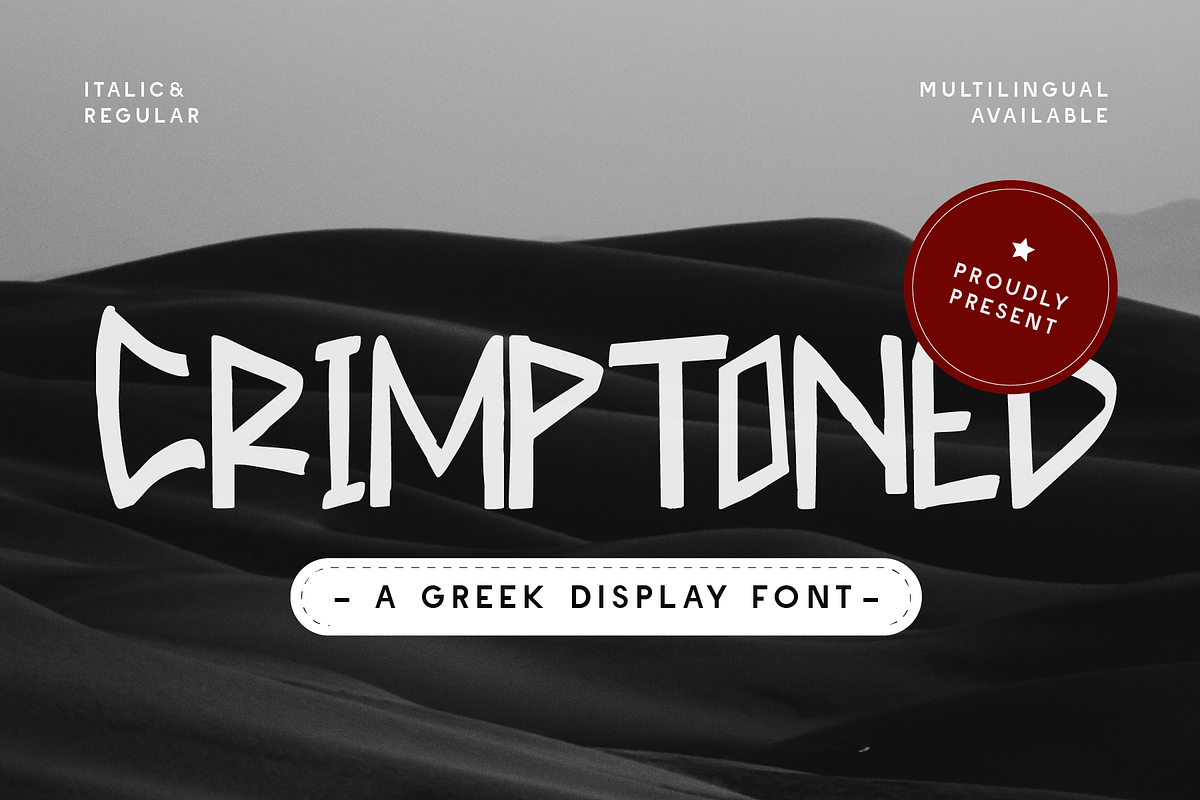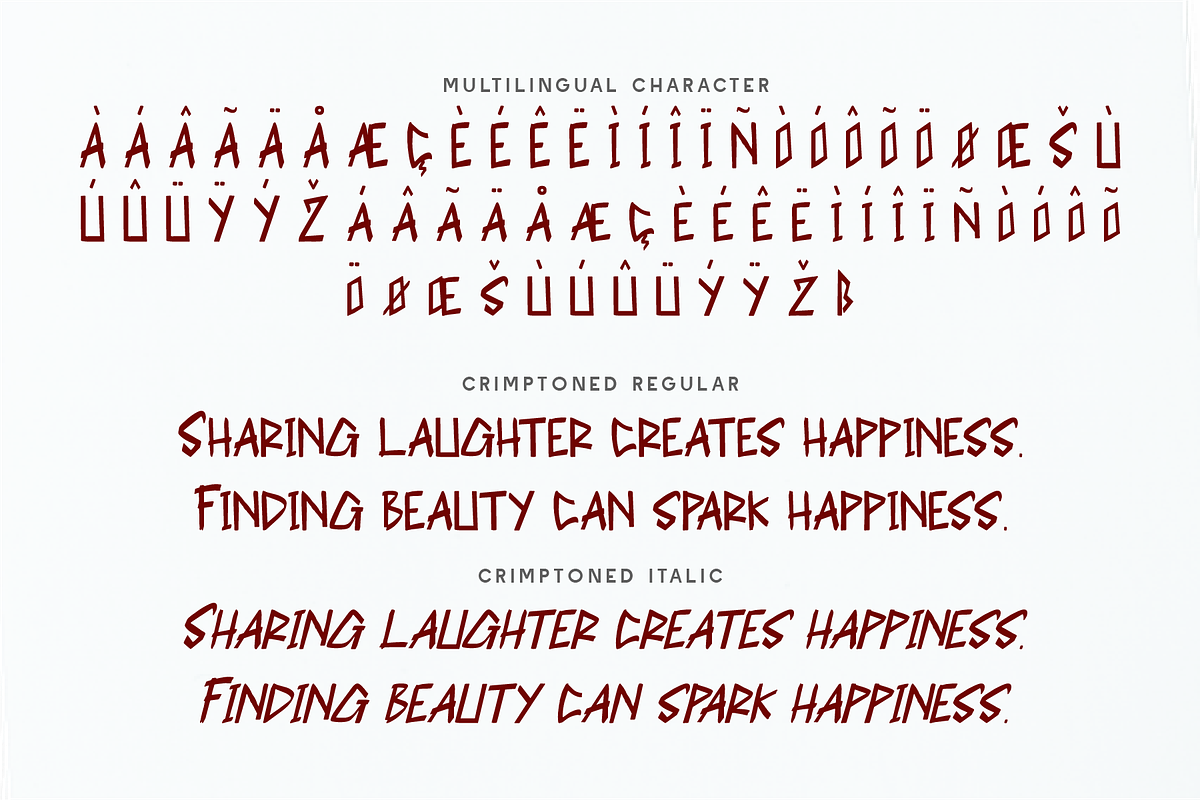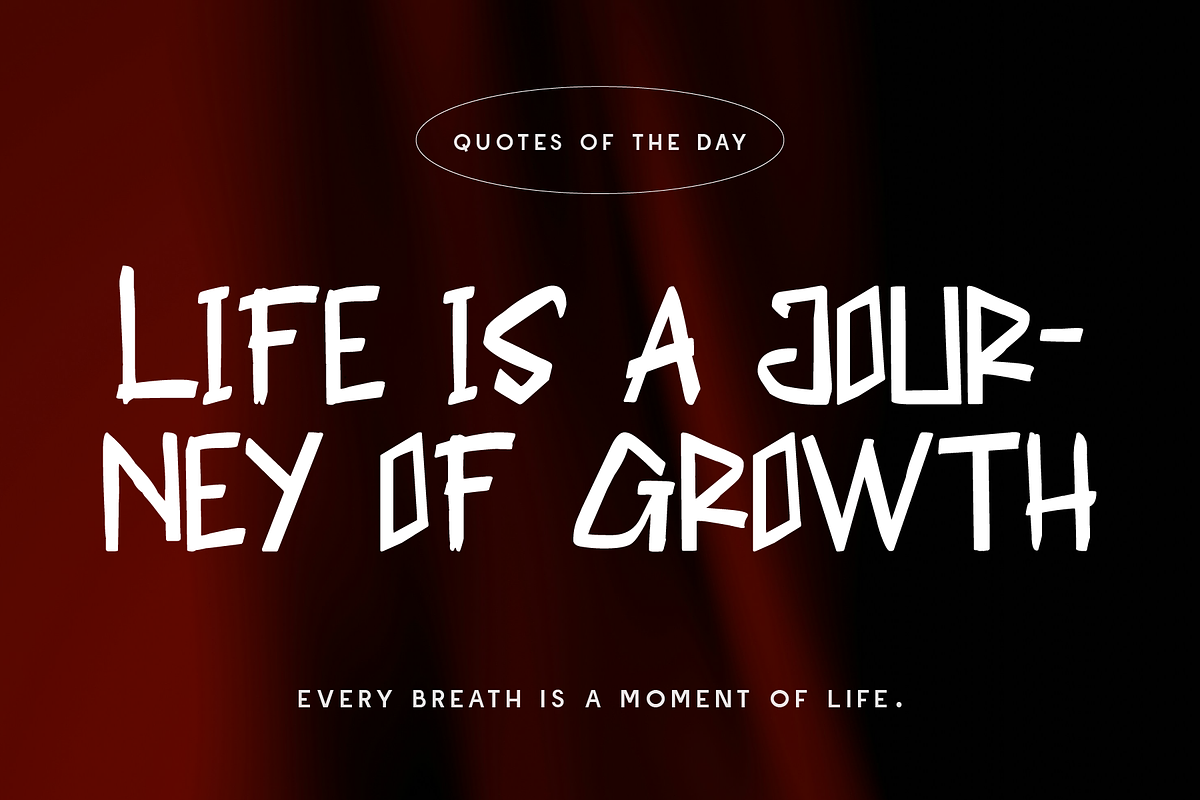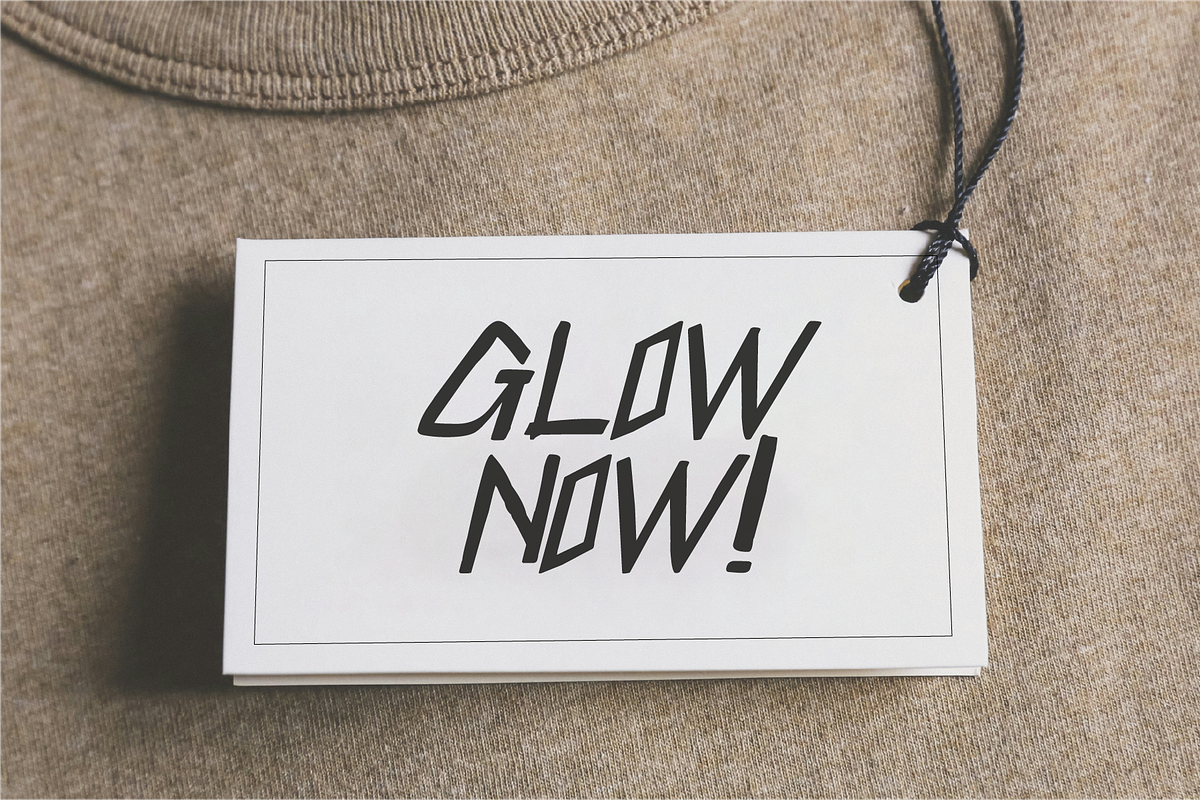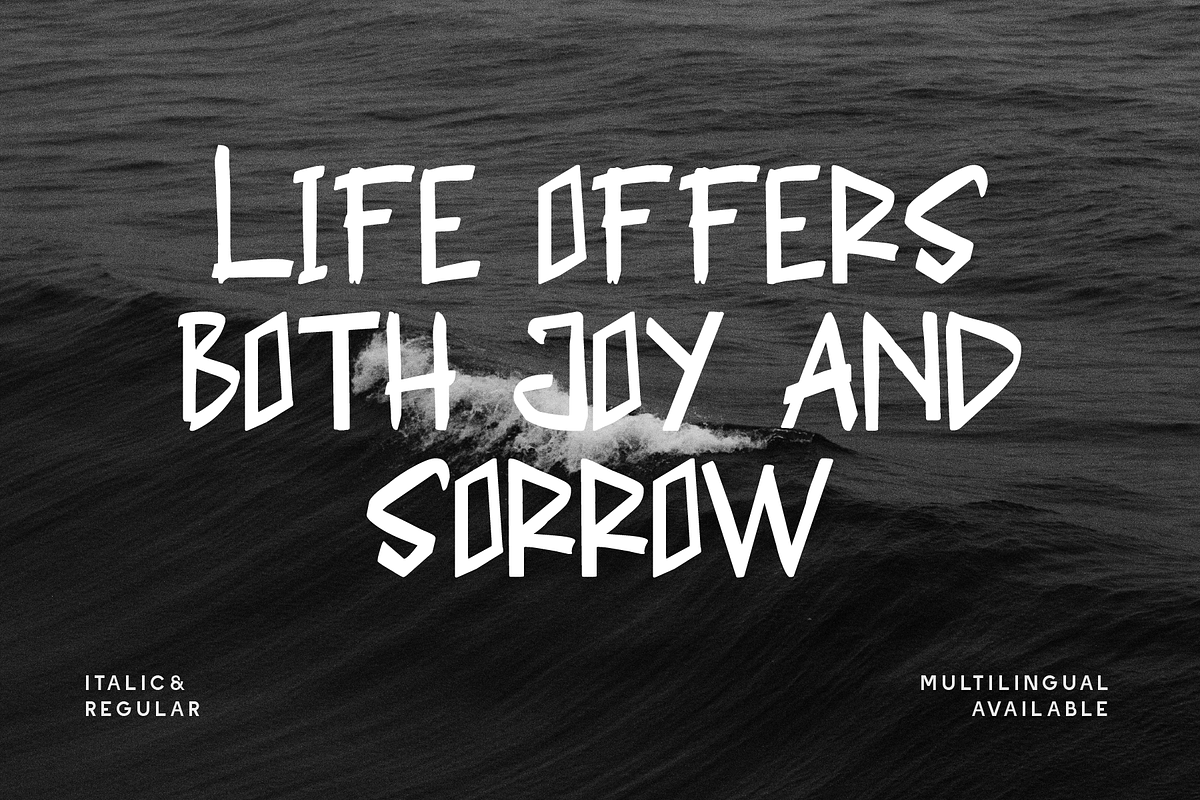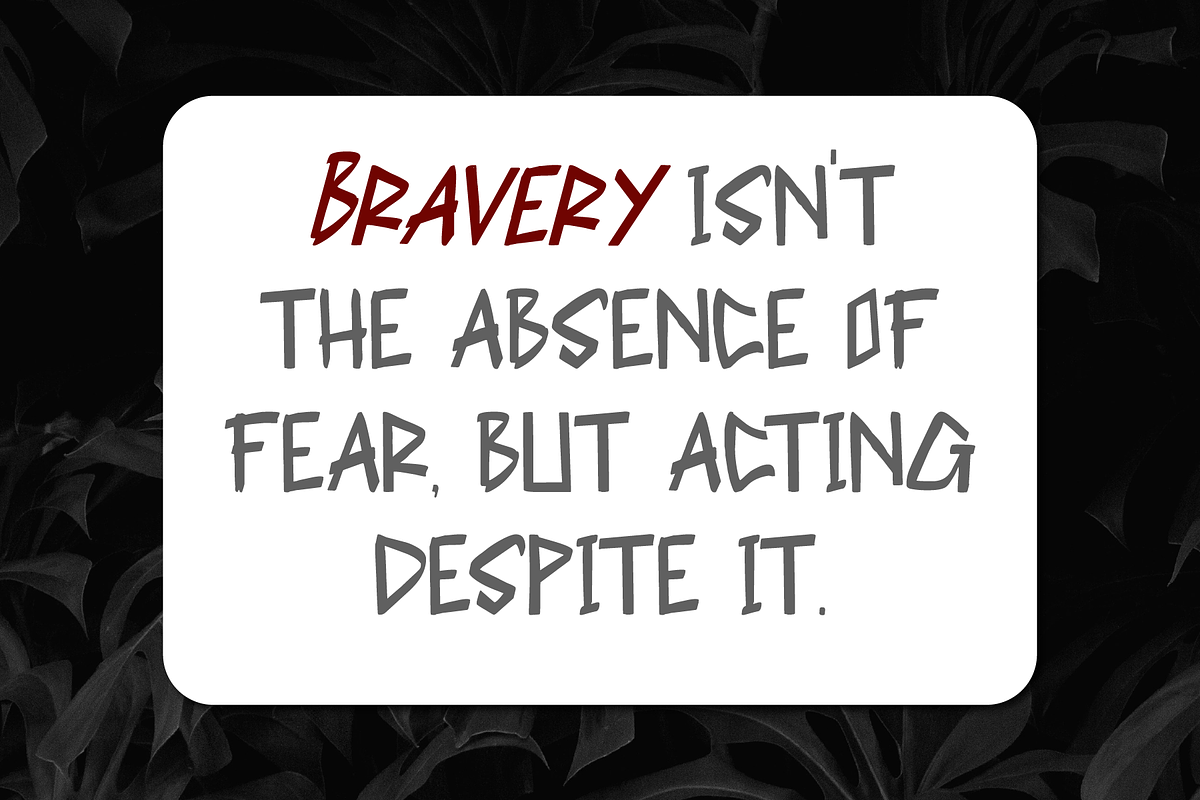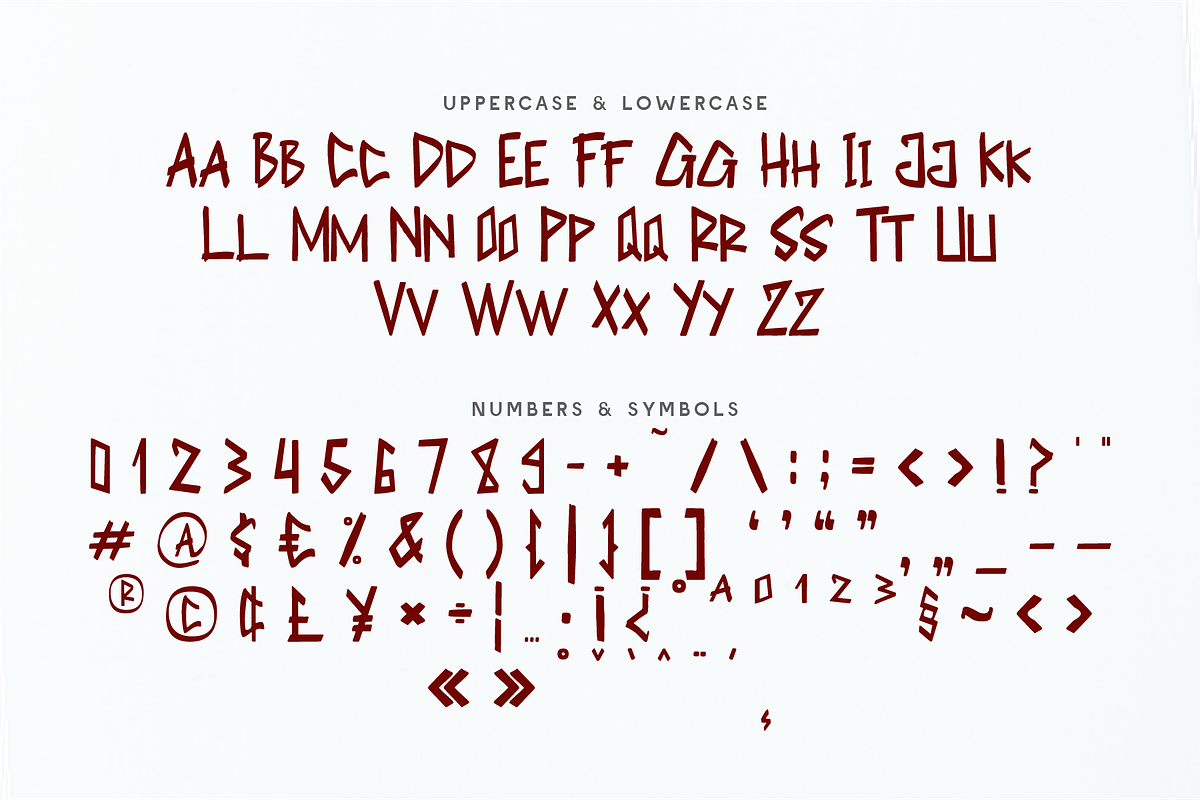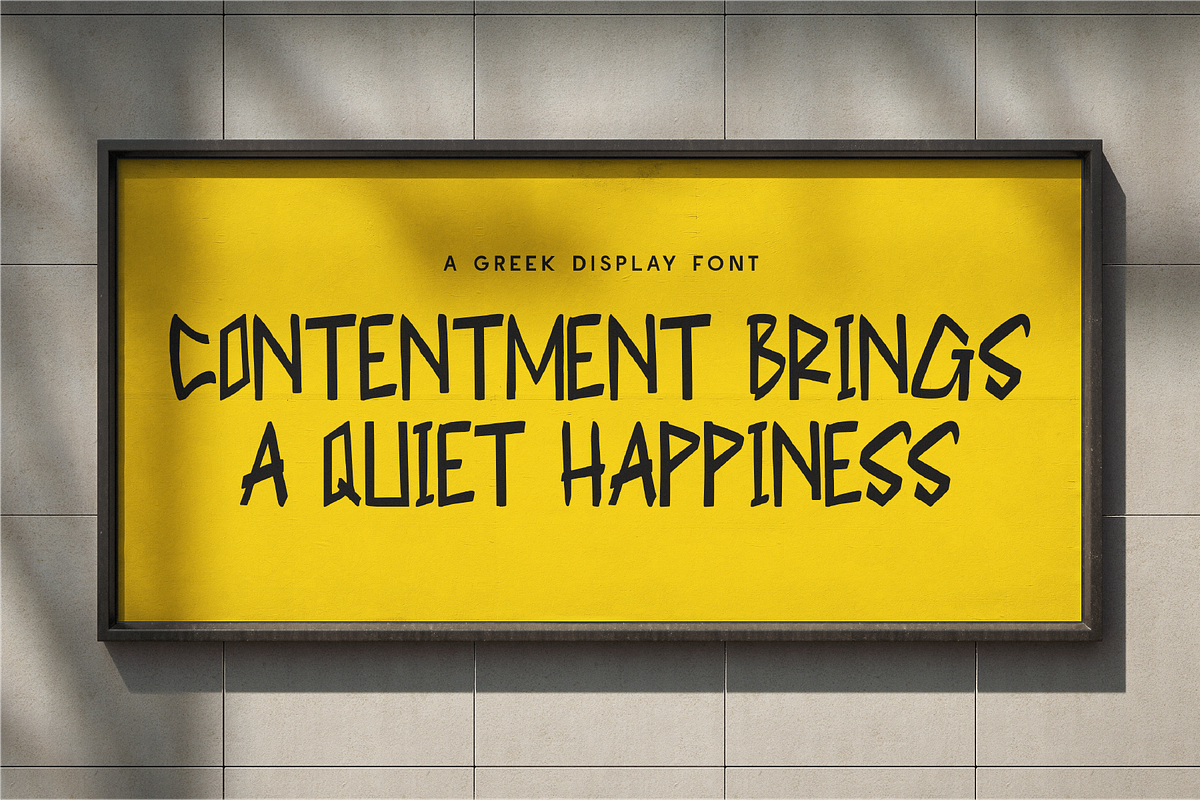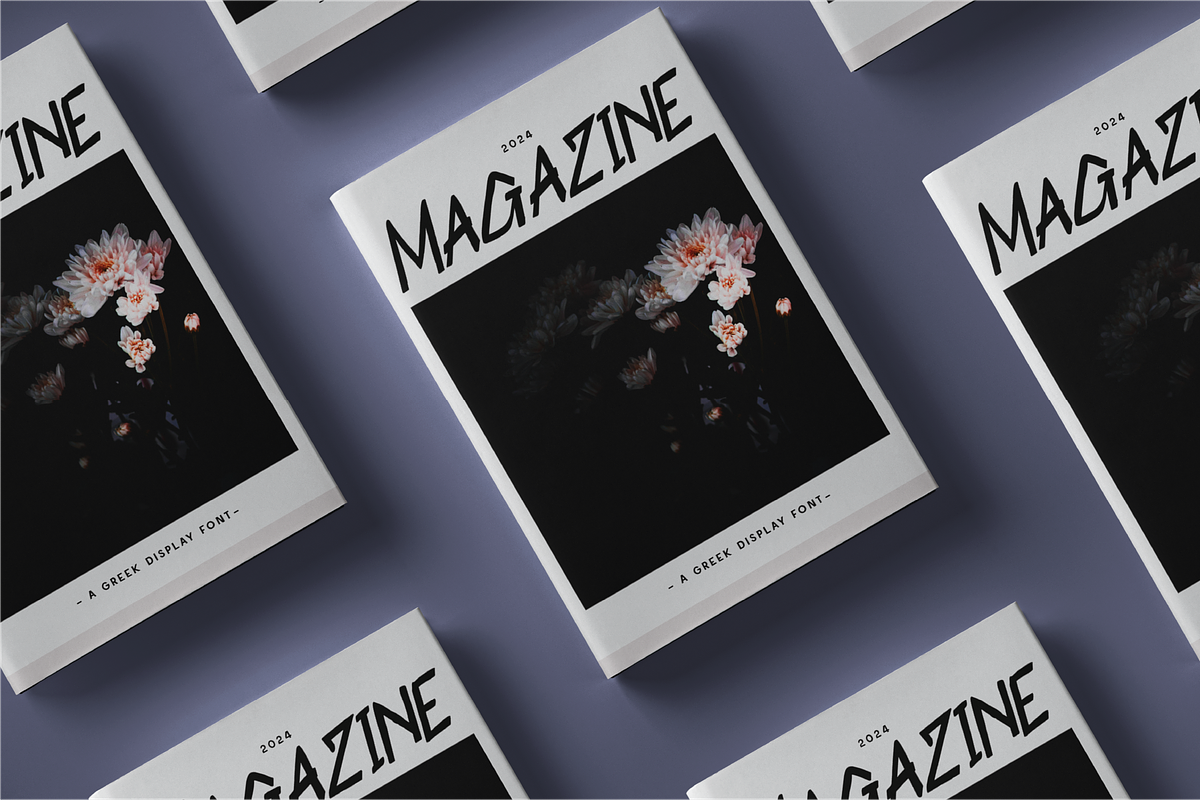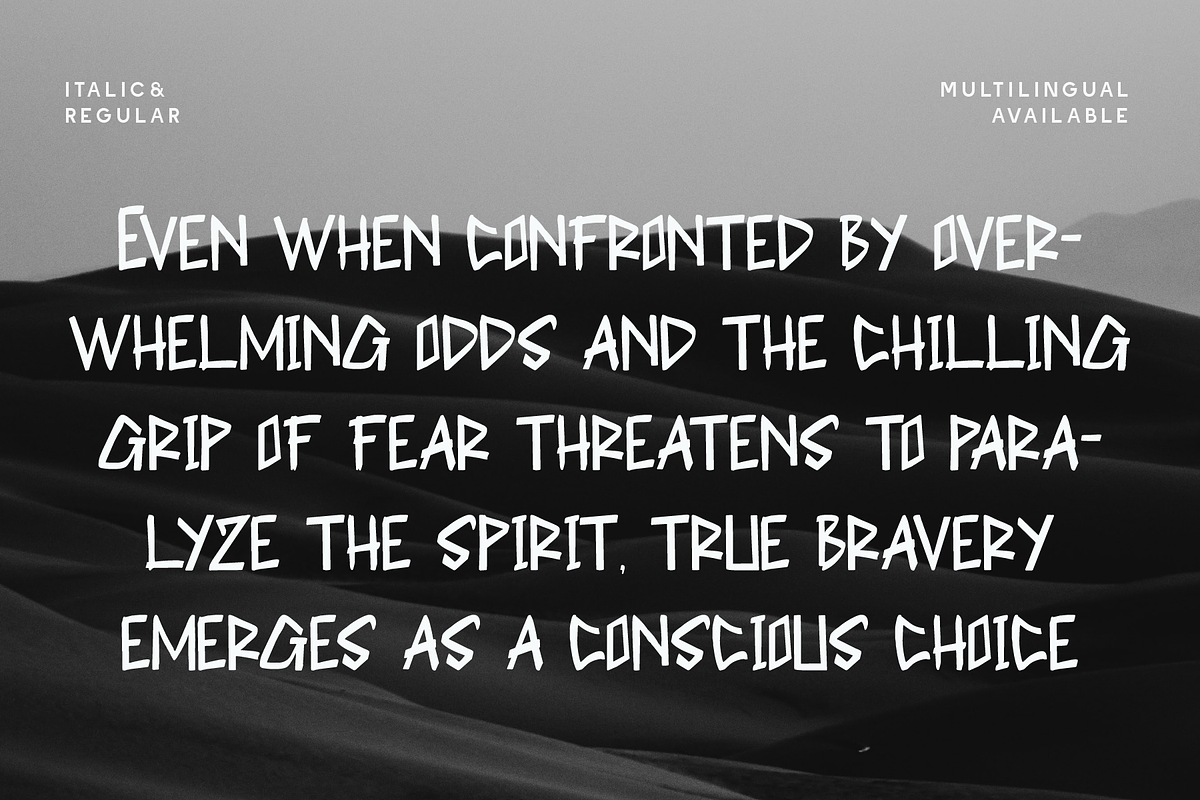
Crimptoned - Greek Display
Introducing Crimptoned – a Greek-inspired display font that blends ancient character with modern edge. With sharp, chiseled strokes and a raw, angular rhythm, this typeface channels the essence of classical stone carvings while keeping a rebellious, contemporary twist. Crimptoned is made for bold branding, ancient-meets-modern aesthetics, mythological themes, and designs that command a presence. Use it on posters, games, logos, or editorial layouts that dare to be different and timeless at once. Available in Regular and Italic styles, this font carries the strength of the ancients and the boldness of the future.
Why Choose Crimptoned?
🏛 Greek-Inspired Aesthetic: Stylized glyphs with historic roots and edgy lines.
⚡ Standout Display Power: Ideal for bold headlines, logos, and dramatic themes.
🌀 Regular & Italic Styles: Add motion and style flexibility to your layout.
🌐 Multilingual Support: Covers punctuation, symbols, and global languages. Crimptoned isn’t just a font—it’s carved with purpose. Download it now and sculpt your message in style. 🏺🔥
- Standard Character A-Z, a-z, 0-9, Punctuation & symbols
- Regular and Italic